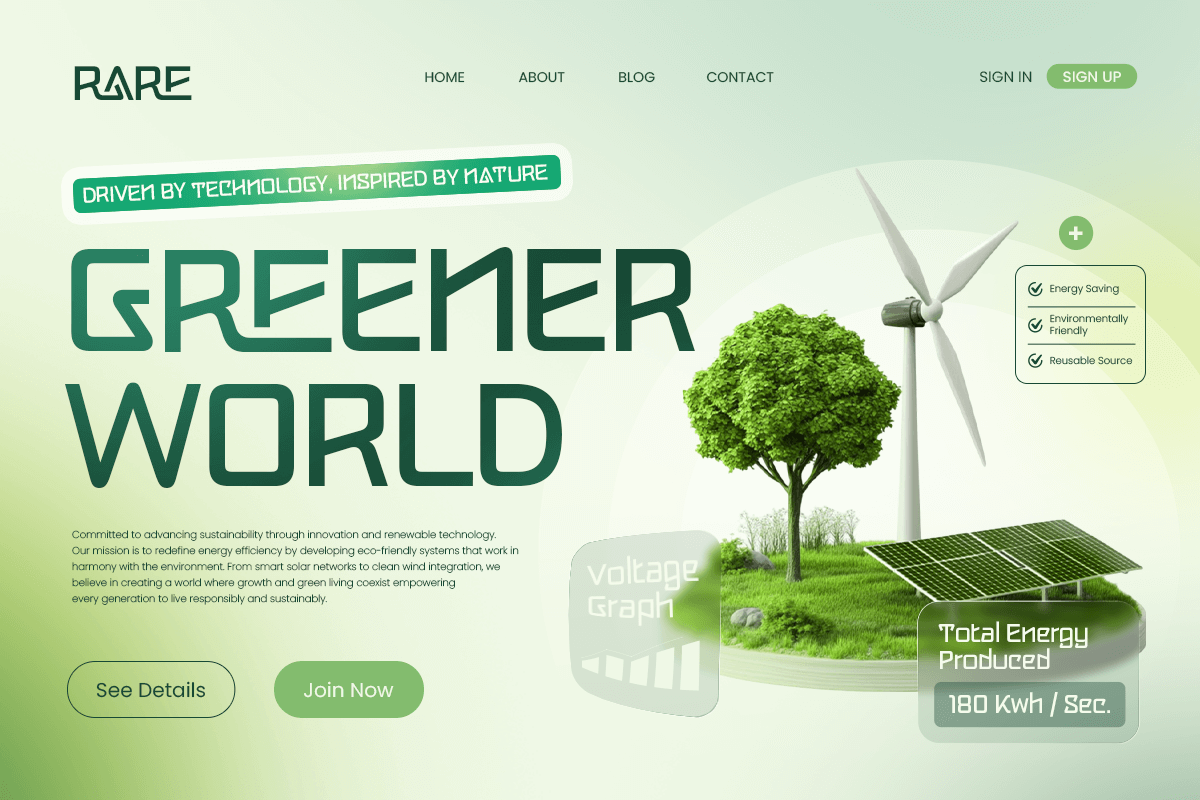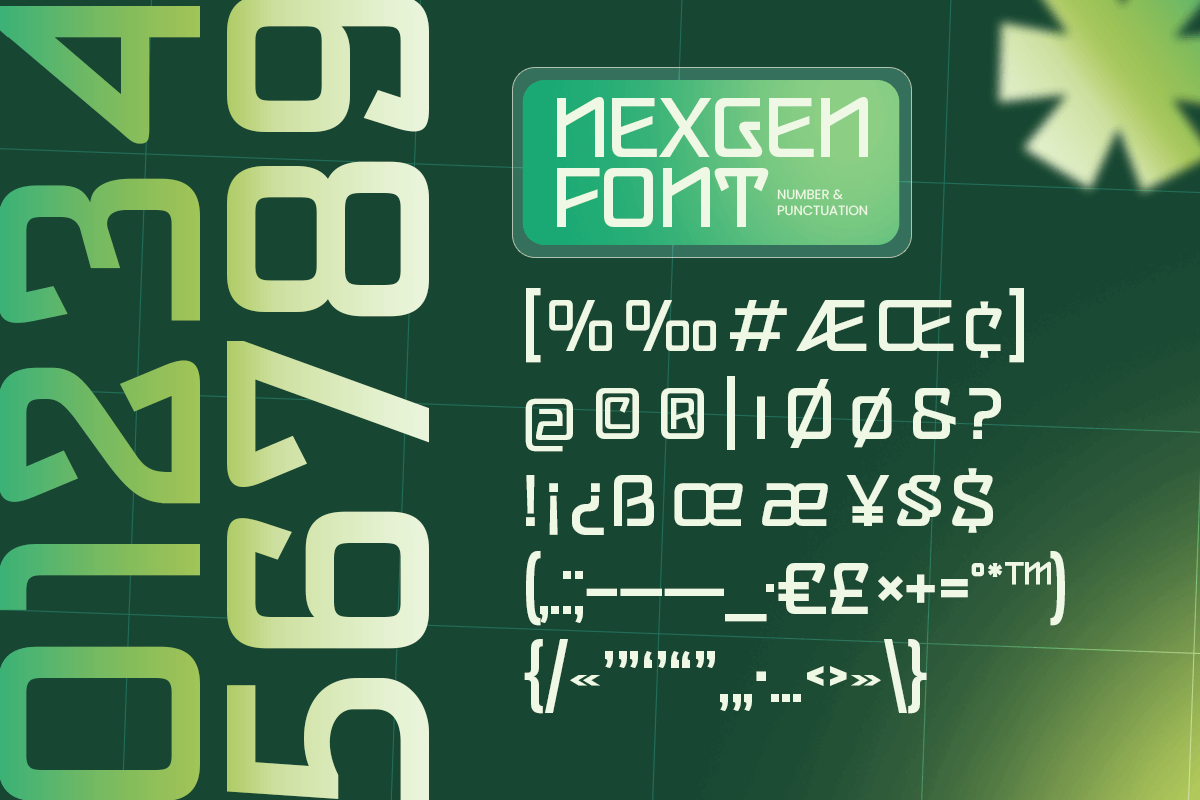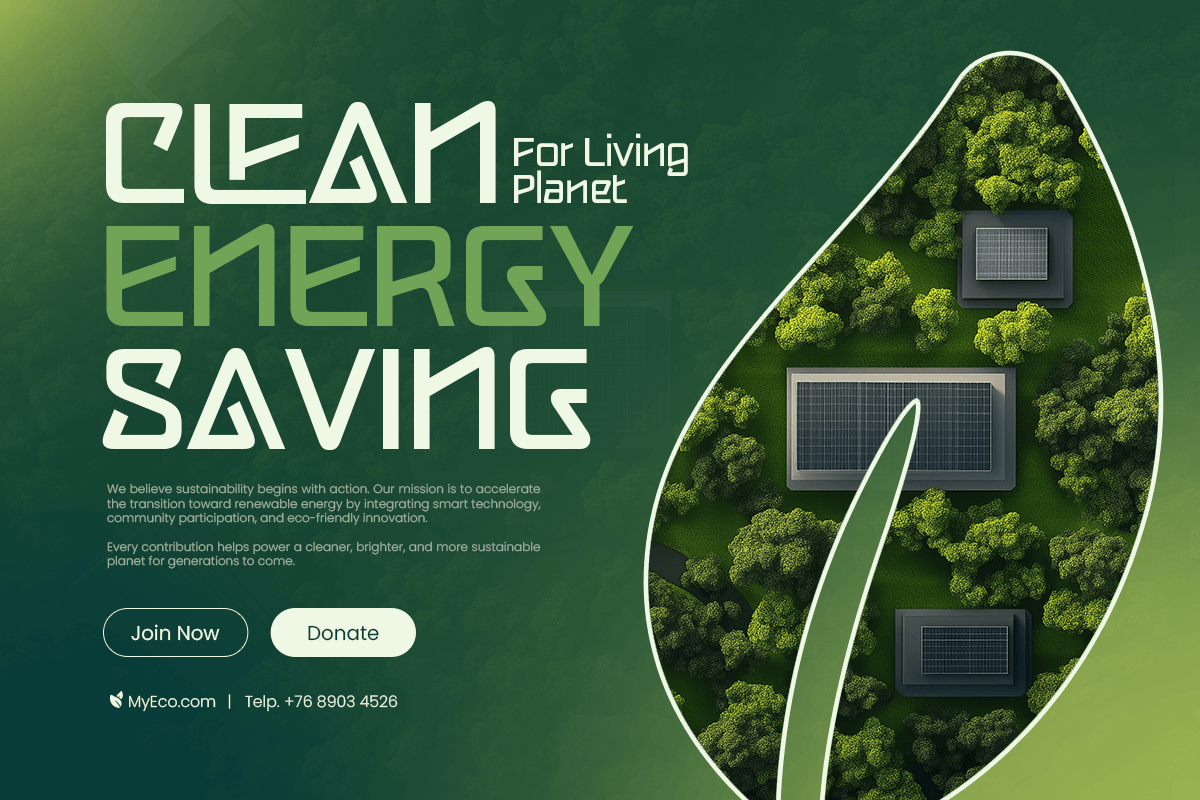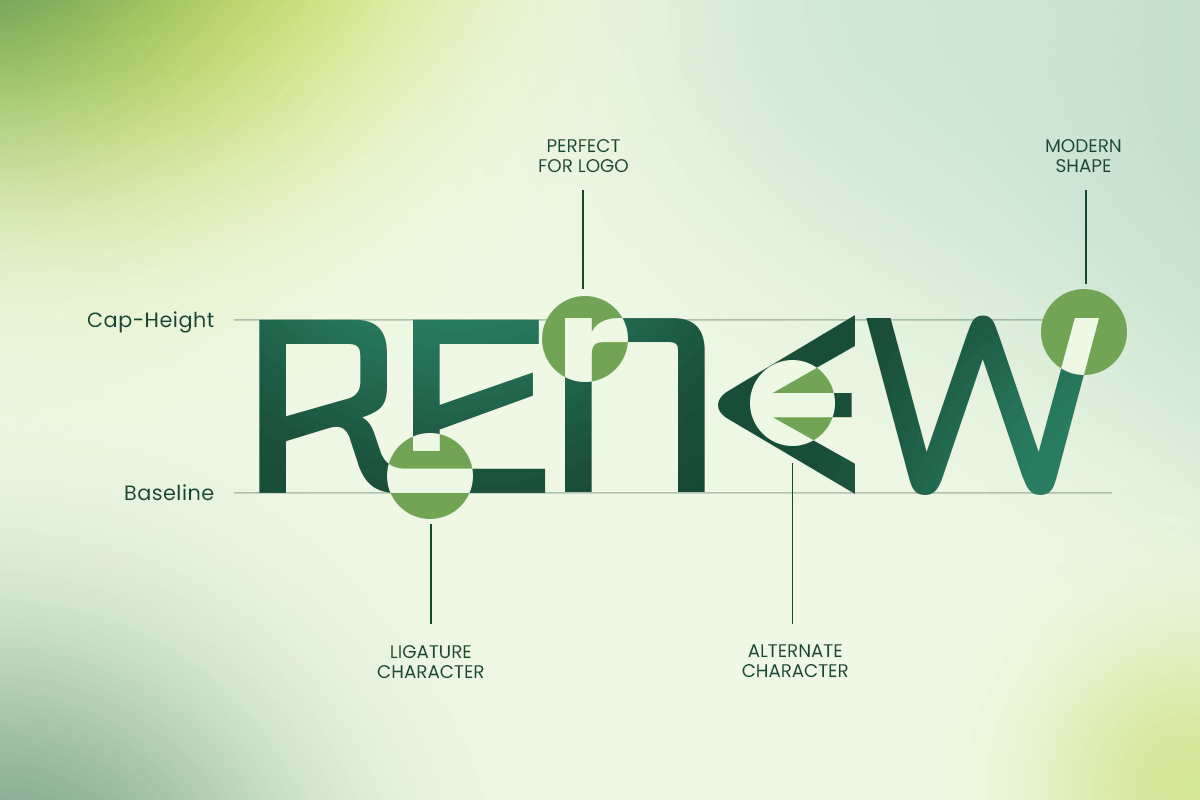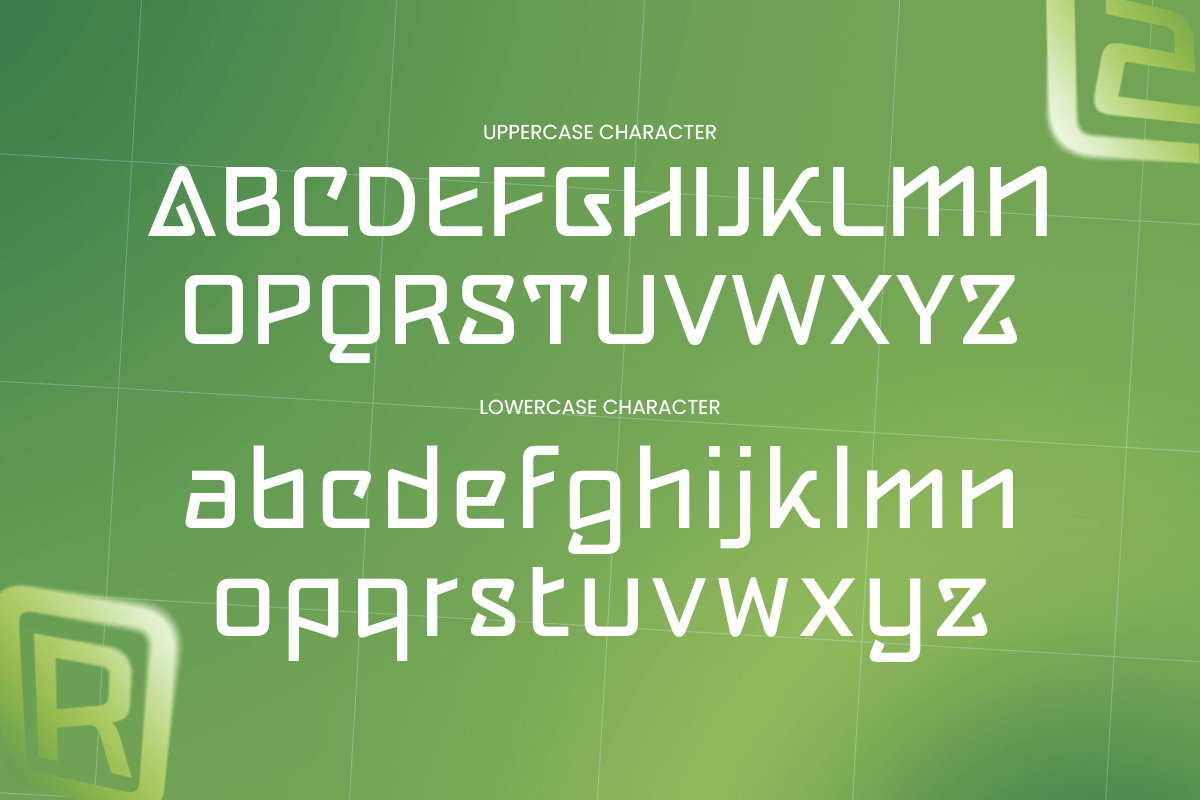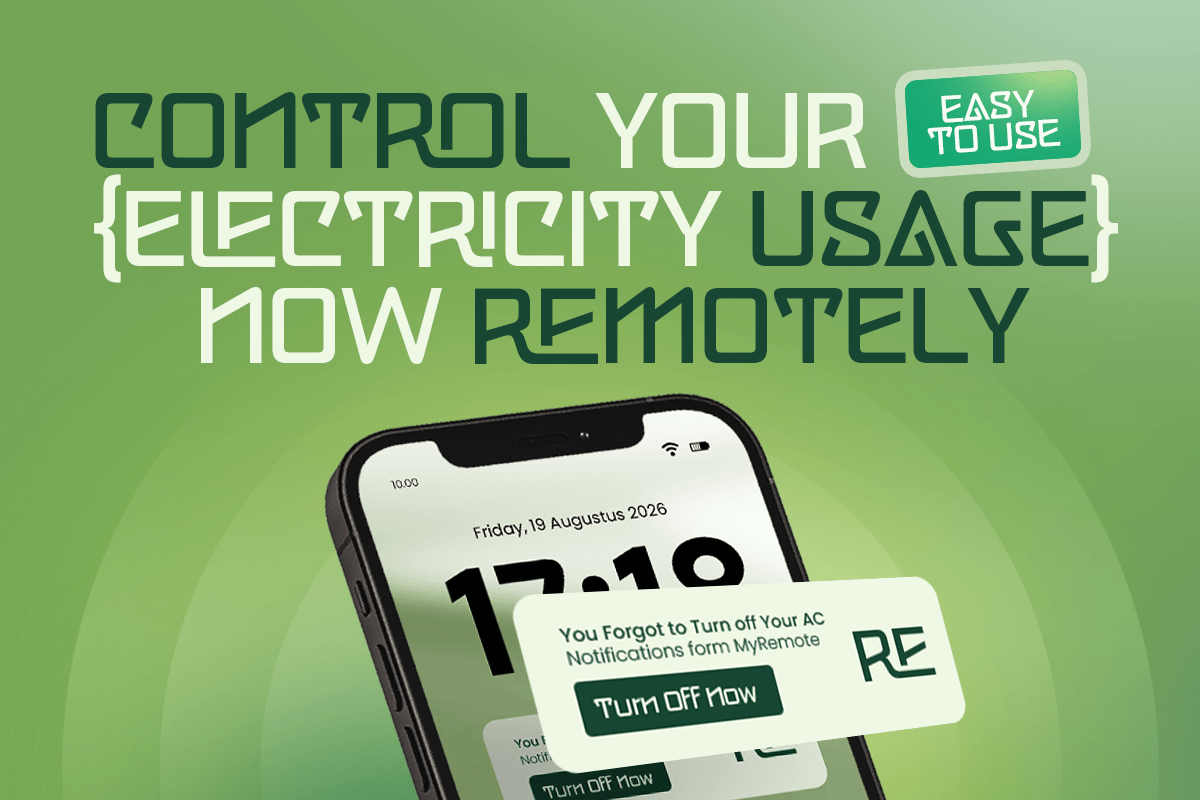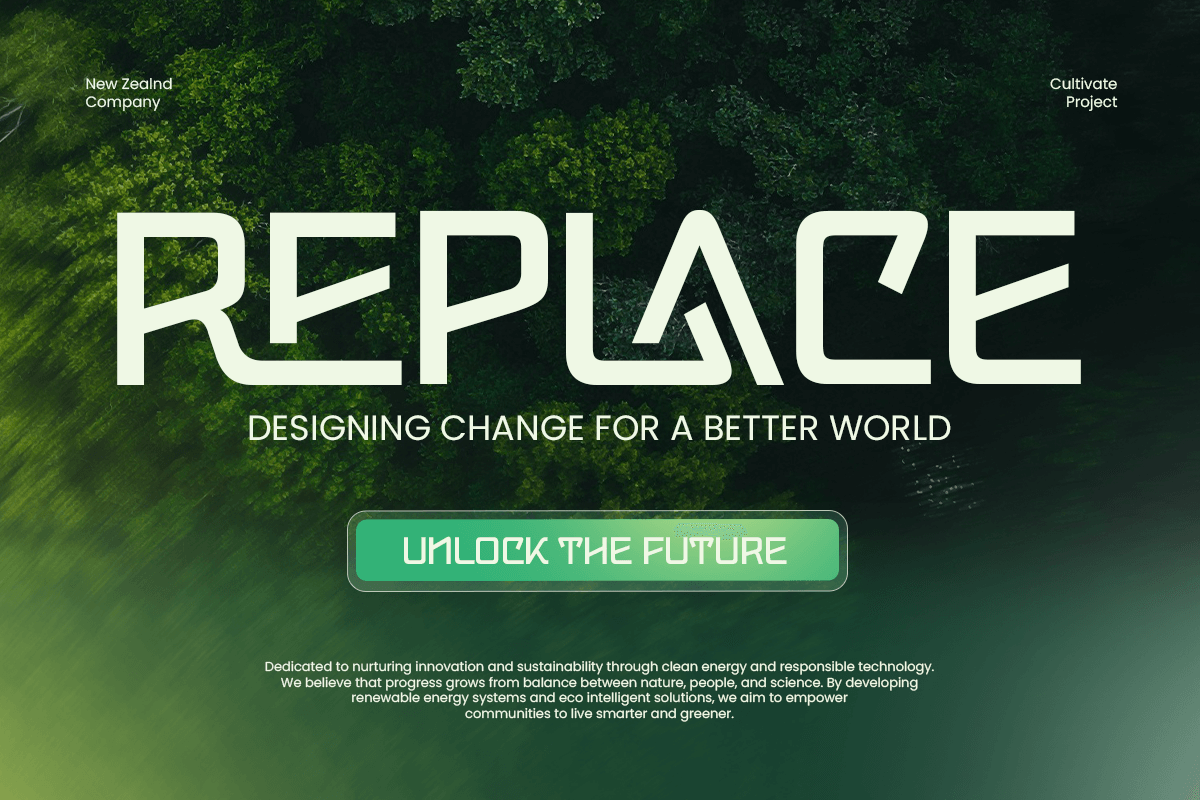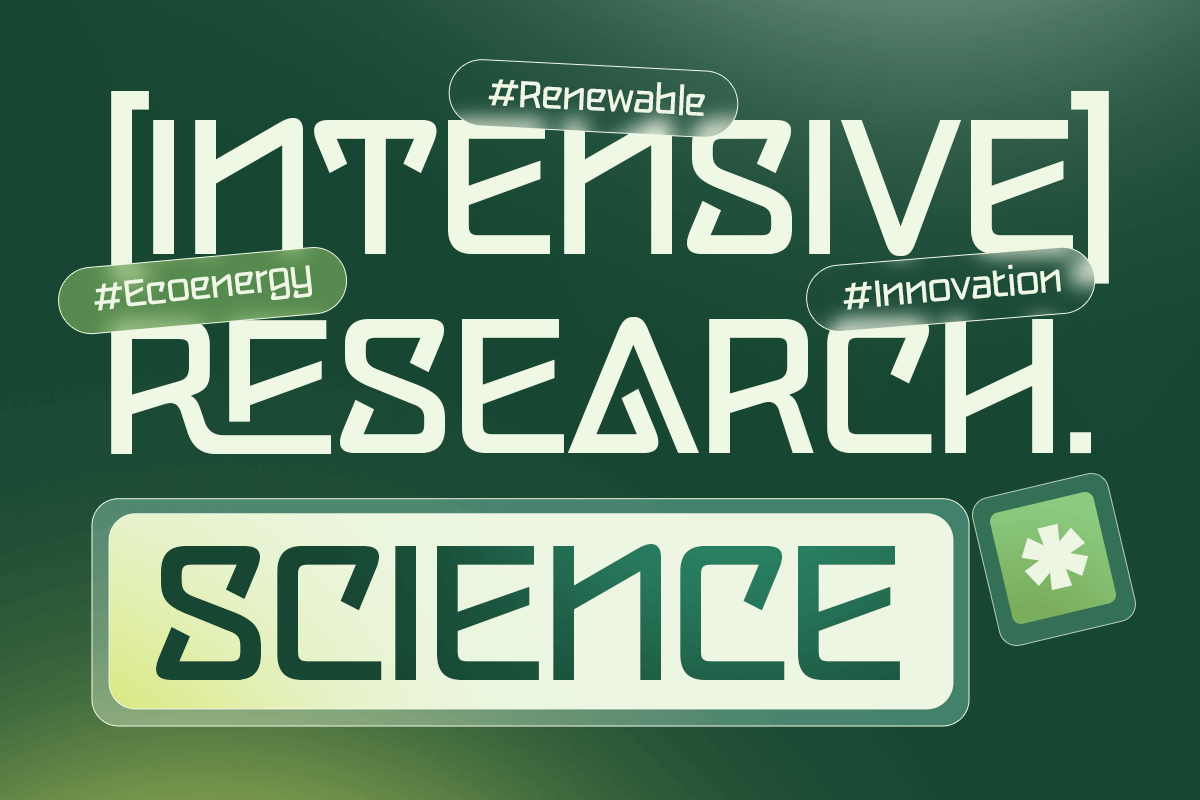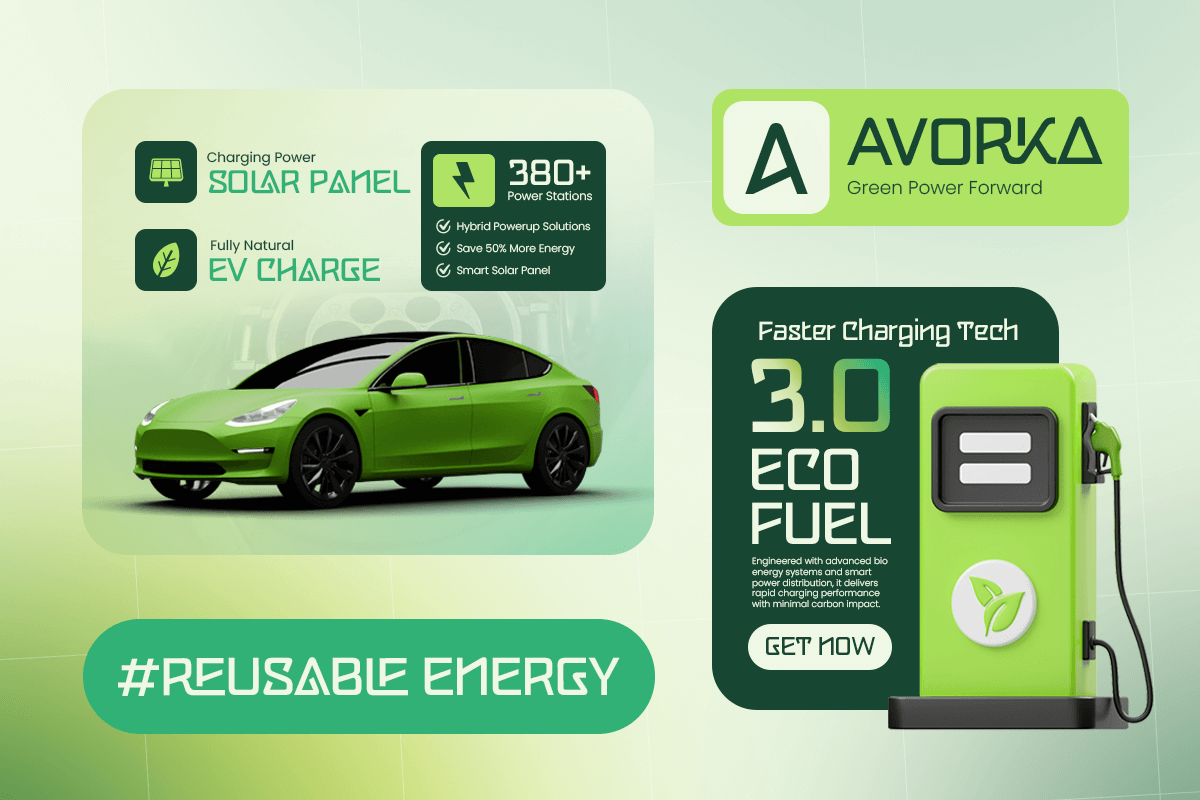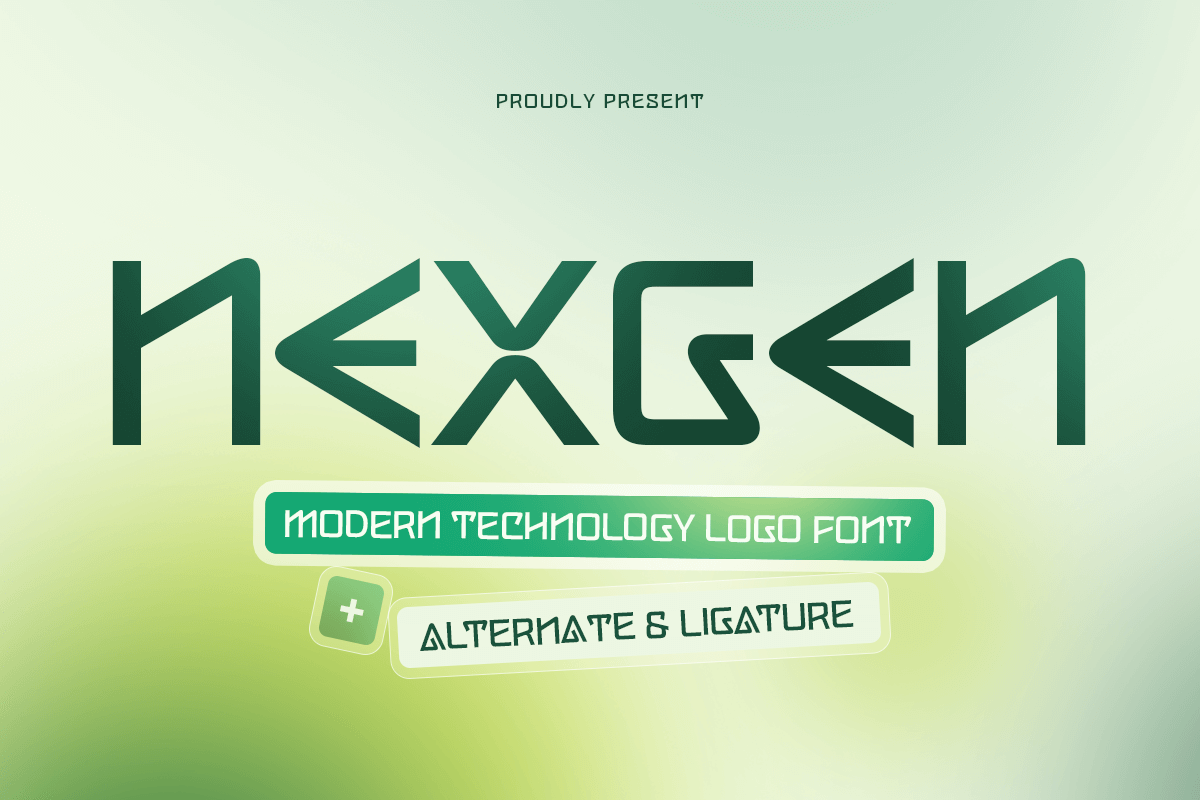
Nexgen - Modern Technology Logo Font
Nexgen – Modern Technology Logo Font
Nexgen is a sleek and futuristic logo font designed for next-generation technology branding. With its clean geometry, sharp details, and modern proportions, Nexgen delivers a powerful and innovative visual identity perfect for tech startups, digital platforms, software companies, and modern businesses.
Crafted to reflect progress and innovation, Nexgen offers excellent readability while maintaining a strong technological character. Its modern structure makes it ideal for logos, app branding, UI/UX design, product identities, and corporate technology visuals that demand clarity, confidence, and a forward-thinking style.
Nexgen – Modern Technology Logo Font Features:
* Modern technology style with clean geometric construction
* Perfect for logos, tech branding, startups, and digital products
* Uppercase, lowercase, numerals, and punctuation included
* Optimized kerning for professional logo presentation
* Ideal for futuristic, innovative, and modern design projects
Step into the future with Nexgen – the modern technology logo font built for innovation-driven brands.